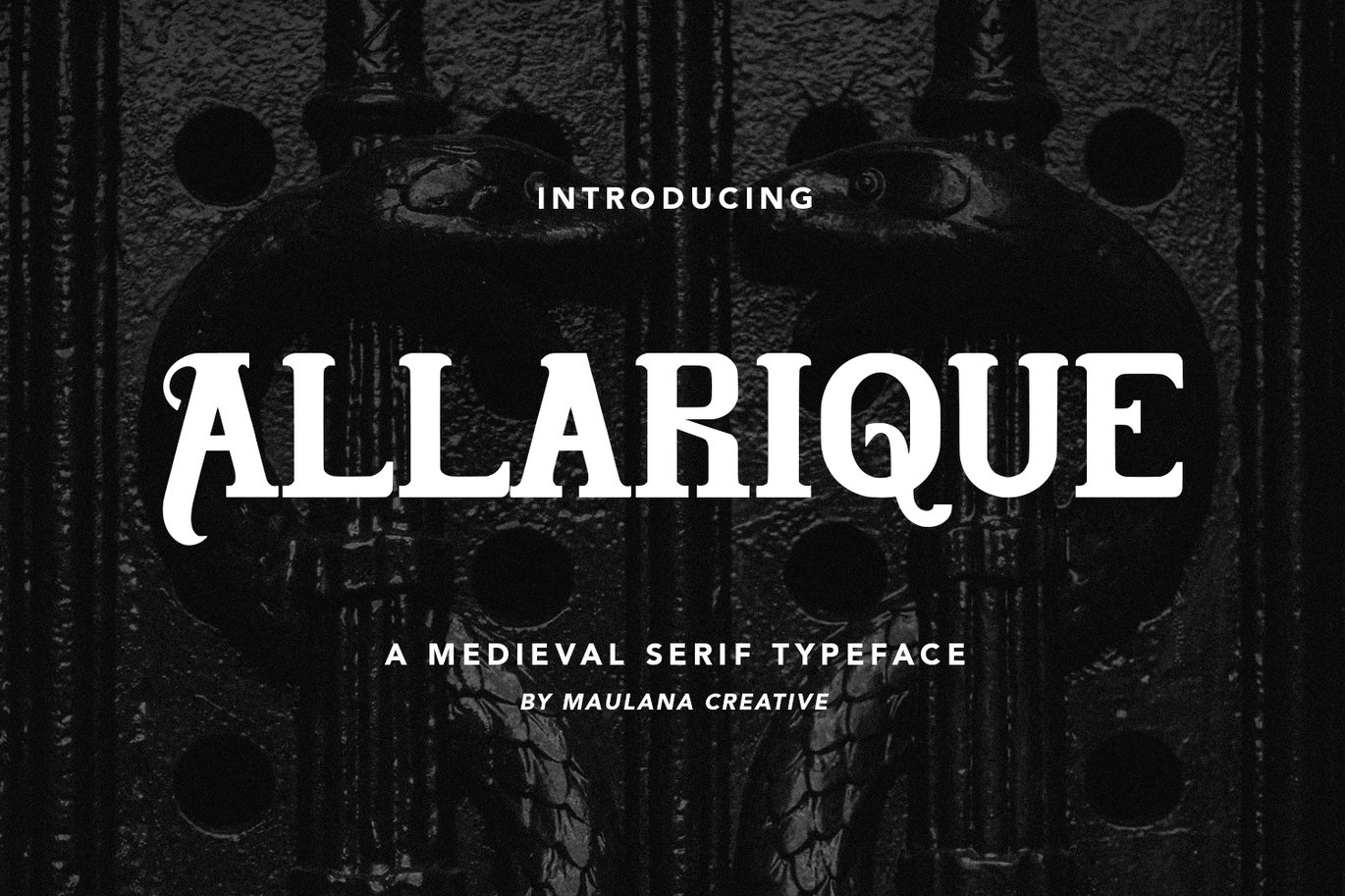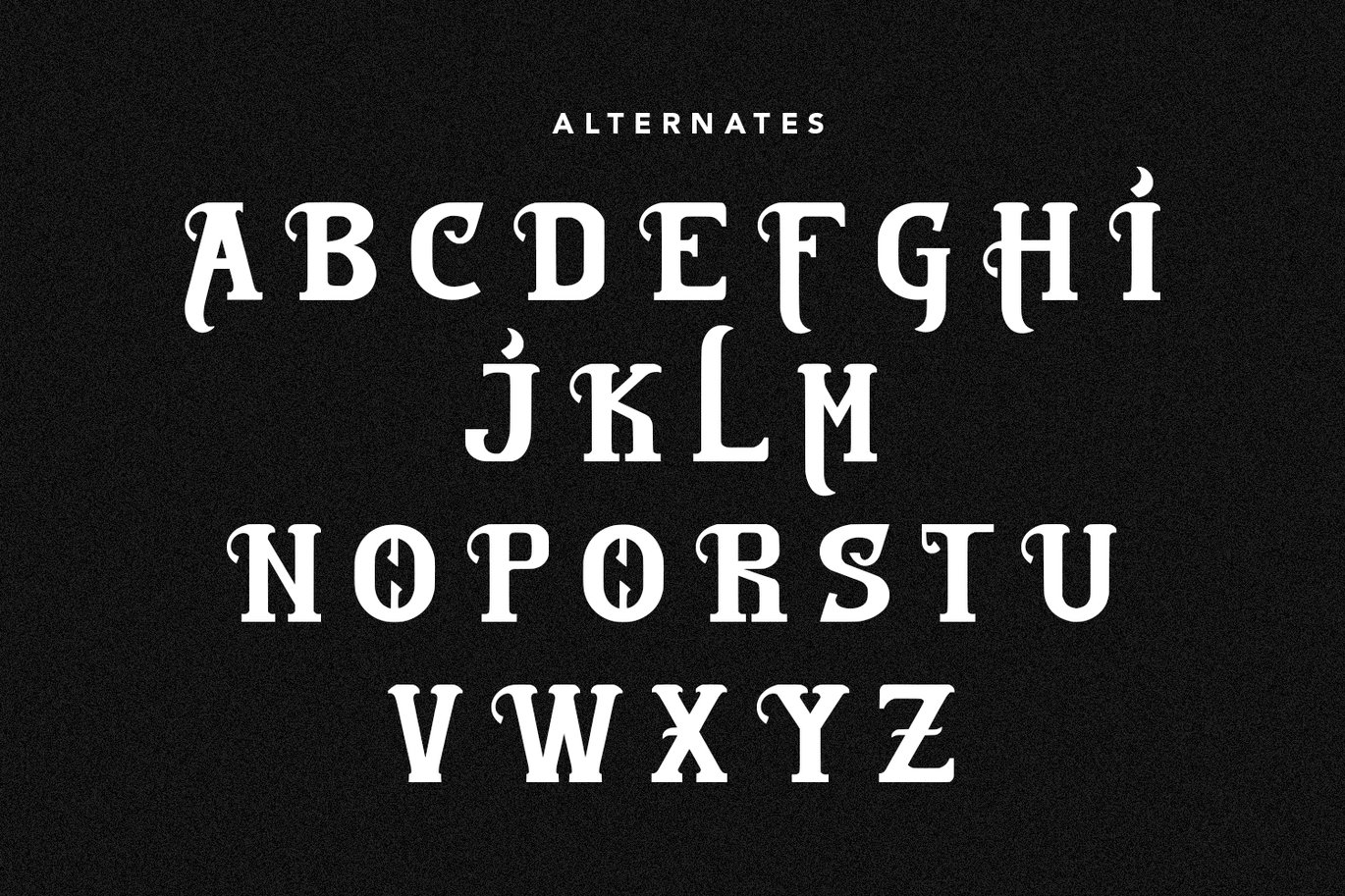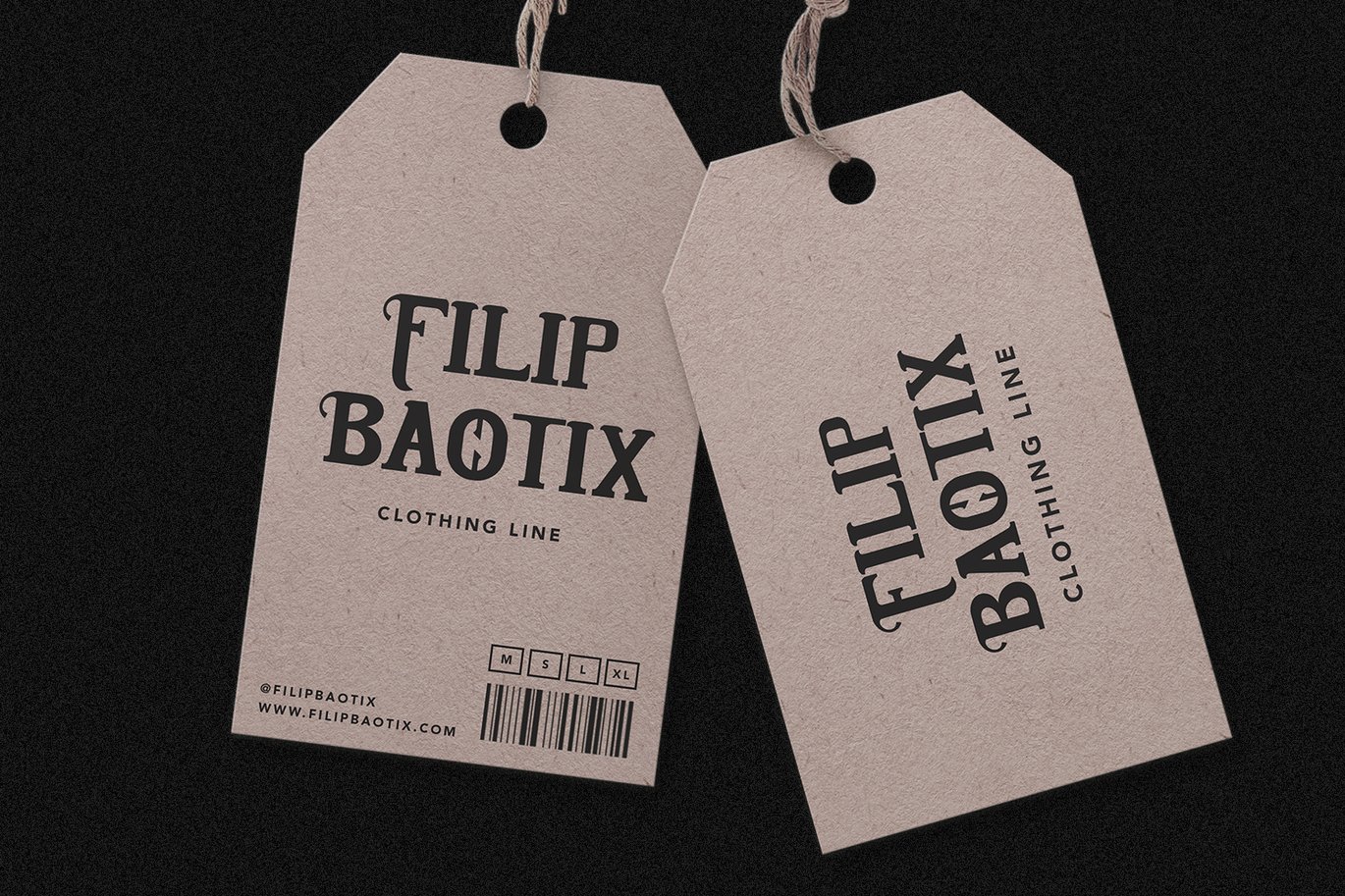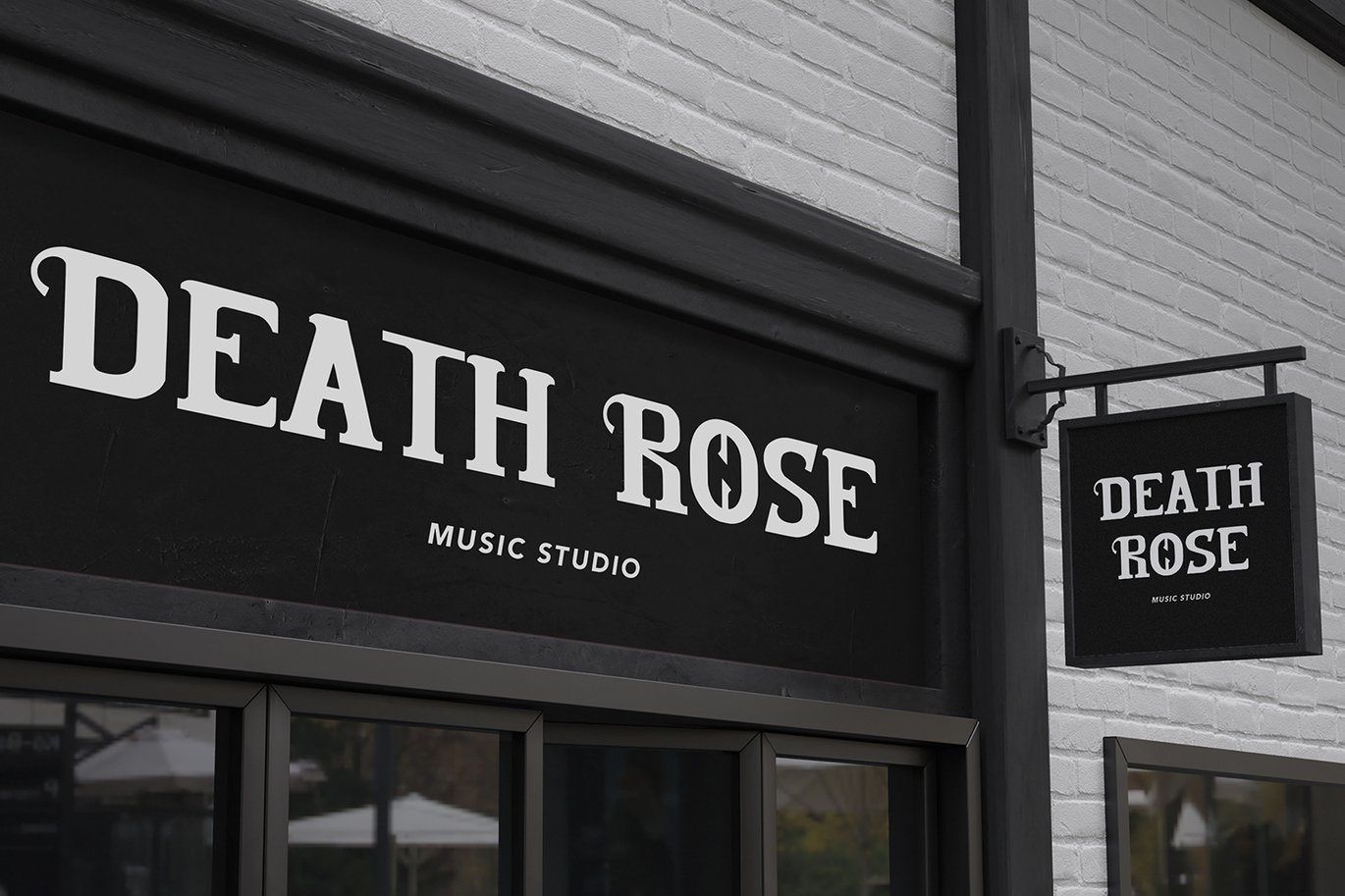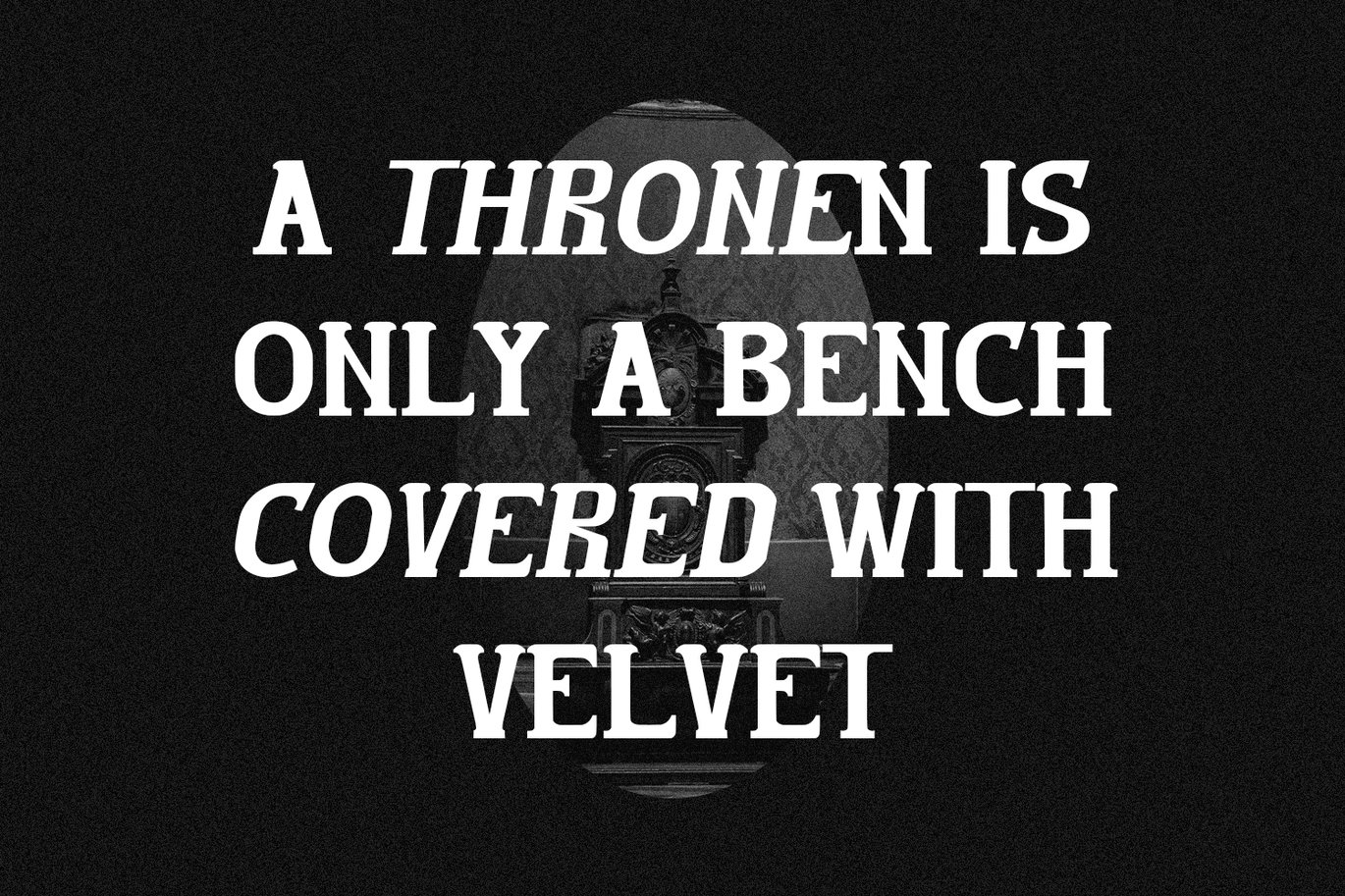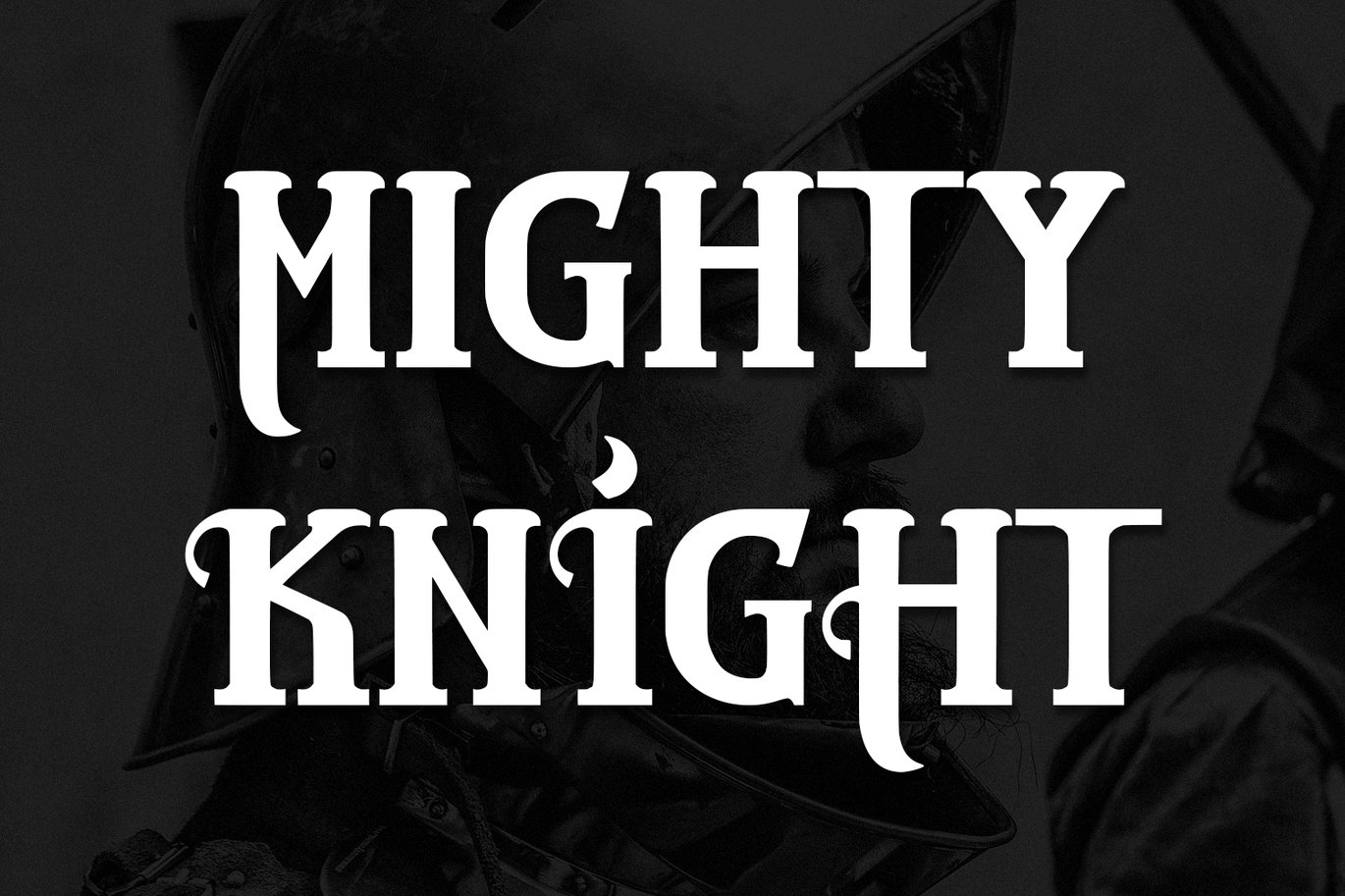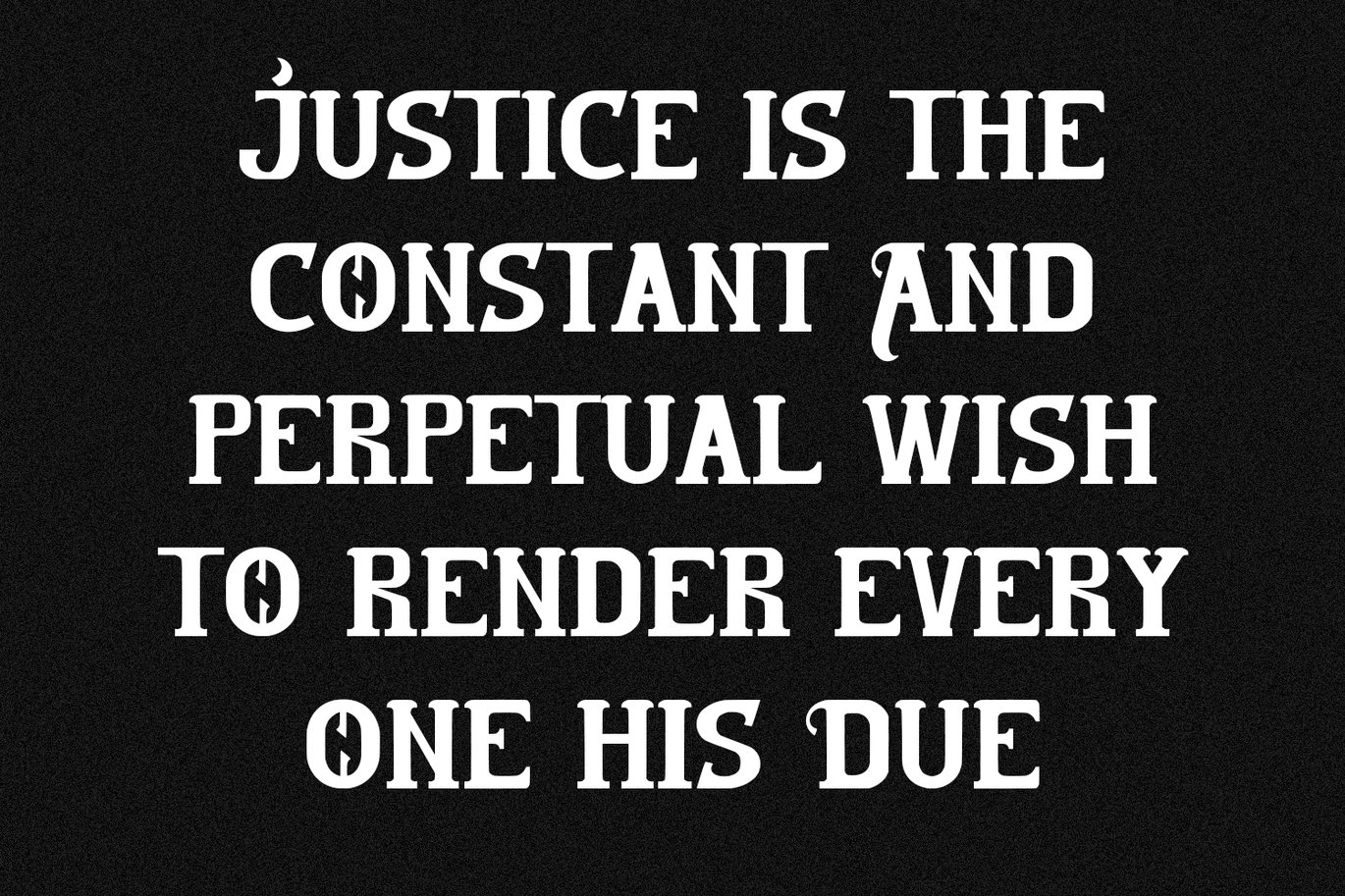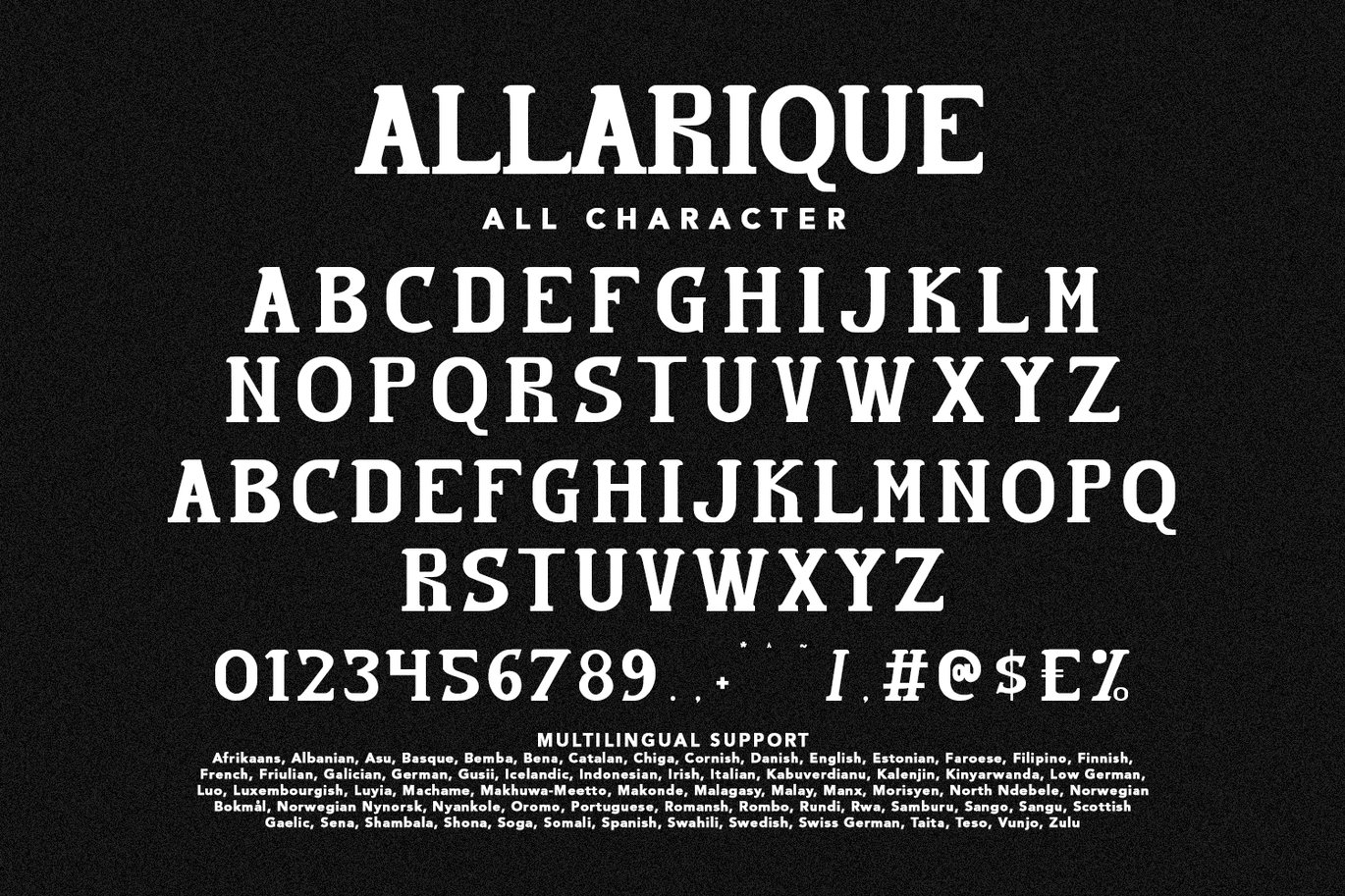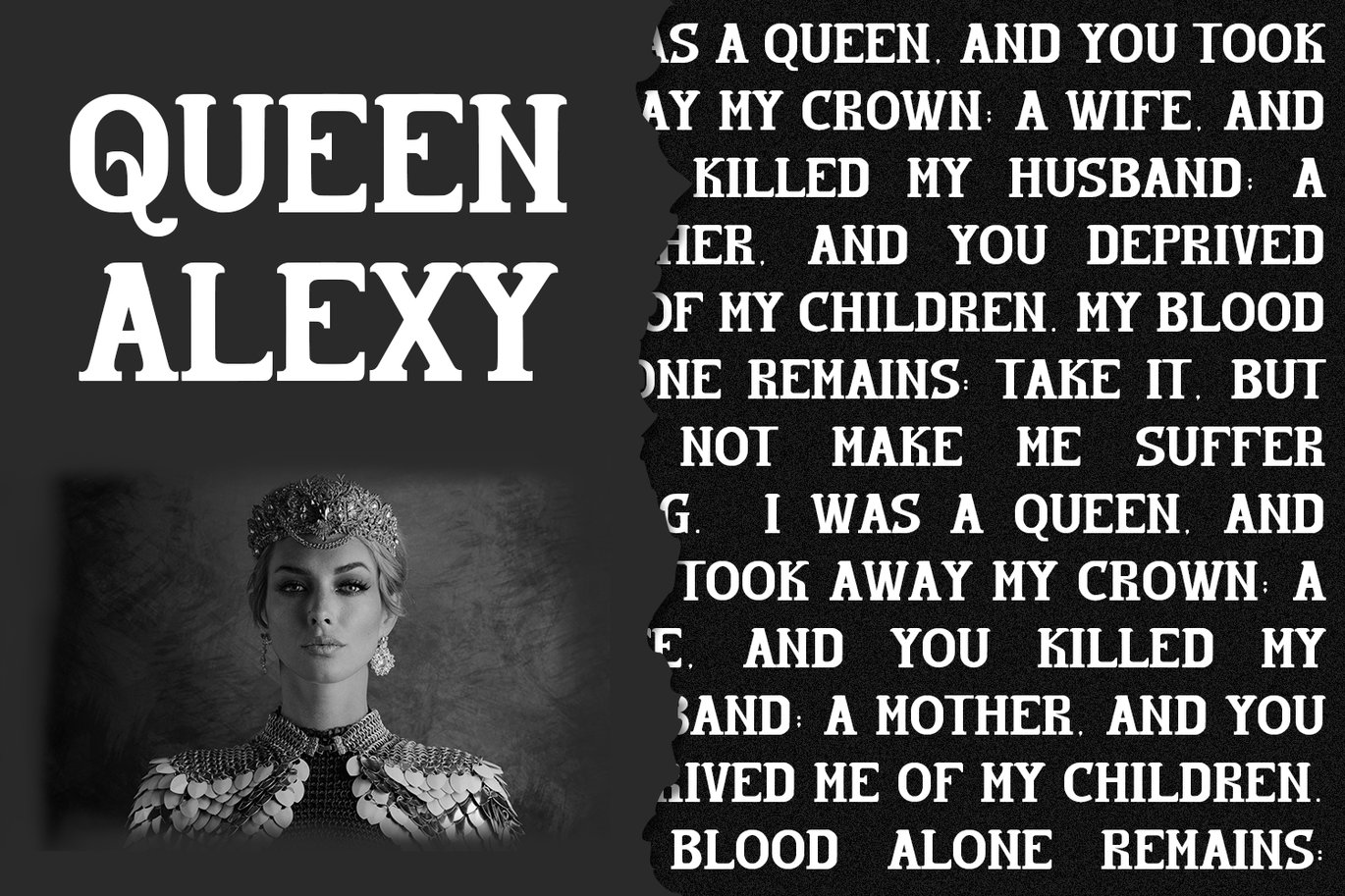
Allarique Medieval Serif Typeface
Allarique is a classic display serif font. With medium low contrast stroke, fun character with a bit of ligatures and alternates. To give you an extra creative work. Allarique font support multilingual more than 100+ language. This font is good for logo design, Social media, Movie Titles, Books Titles, a short text even a long text letter and good for your secondary text font with script or serif. Make a stunning work with Allarique font.